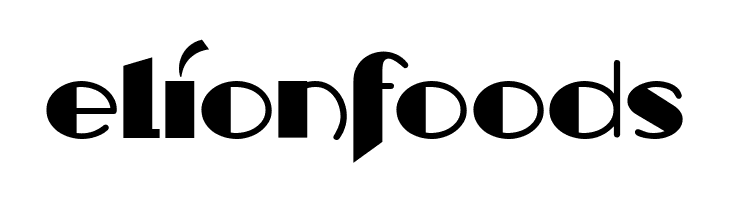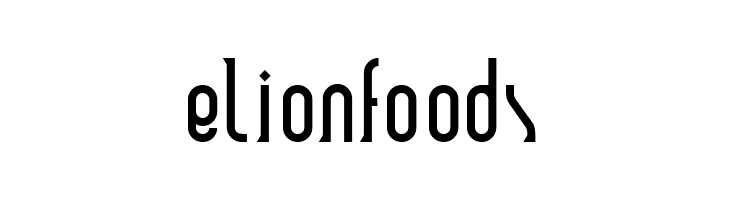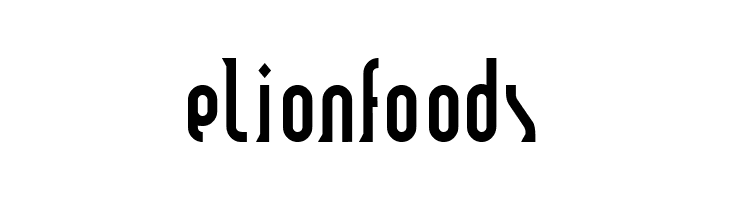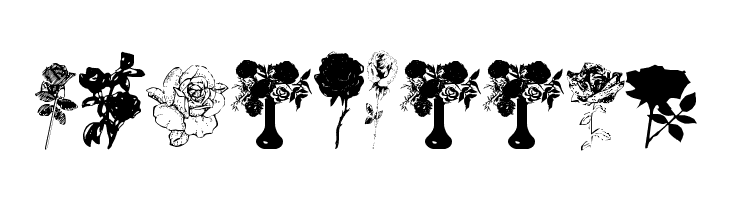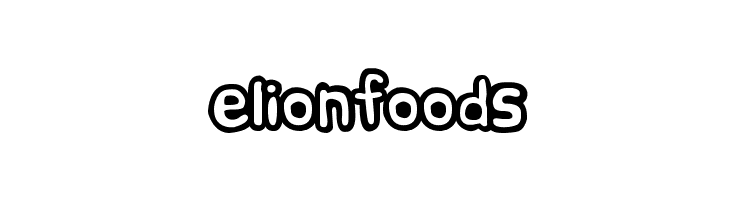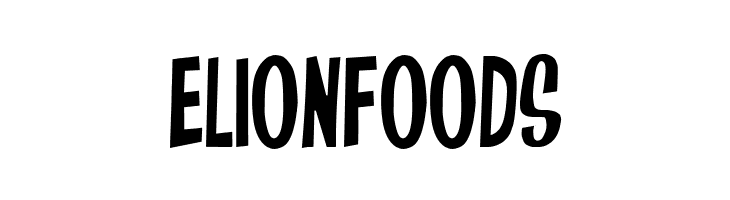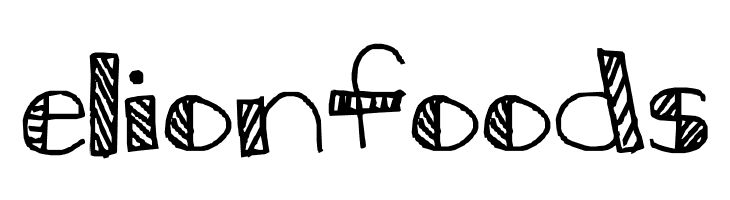
( Andriko1 )
A dynamic and flowing script font with elegant, cursive letterforms.
( Atjcloth Studio - Hanif Syahputra - creativemarket.com/Atjcloth?u=Atjcloth )
A dynamic and expressive handwritten font with playful curves and irregular strokes.
( Brad Terry - bradterry.net )
A sleek, modern font with thin lines and smooth curves, ideal for minimalist designs.
( Cat.B - Agathe M.Joyce - www.foundmyfont.com )
An elegant script font with flowing, interconnected letters and a classic calligraphic style.
( Darrell Flood )
A bold, geometric font with a futuristic and digital aesthetic.
( Darrell Flood )
A bold, italicized font with a futuristic and angular design.
( Darrell Flood )
A bold, geometric font with a futuristic and digital style.
( Darrell Flood )
A bold, angular, and italicized font with a futuristic and aggressive design.
( Dismantle Destroy - Matthew Tyndall - creativemarket.com/Dismantle )
A bold, italic, modern font with a sleek and dynamic design.
( Dismantle Destroy - Matthew Tyndall - creativemarket.com/Dismantle )
A sleek, modern italic font with clean lines and geometric structure.
( Dismantle Destroy - Matthew Tyndall - creativemarket.com/Dismantle )
A modern, geometric font with sleek lines and circular elements.
( Dismantle Destroy - Matthew Tyndall - creativemarket.com/Dismantle )
A modern, geometric font with bold, clean lines and a uniform appearance.
( Dismantle Destroy - Matthew Tyndall - creativemarket.com/Dismantle )
A bold, slab serif font with strong geometric shapes and thick strokes.
( Dismantle Destroy - Matthew Tyndall - creativemarket.com/Dismantle )
A bold, geometric font with a modern and industrial aesthetic.
( Jordan Raspatie - futureistoday.tumblr.com )
A high-contrast, artistic font with elongated, narrow letters and modern geometric shapes.
( Masinong Studio - creativemarket.com/masinong )
An elegant script font with flowing, cursive letterforms and intricate details.
( Muhammad Akbar - creativemarket.com/sinfa )
A graceful script font with flowing, interconnected letters and a cursive style.
( Nils Stahl )
A playful and eclectic mix of hand-drawn symbols and doodles with a whimsical style.
( Rafael Saldaña - ikarusmedia.deviantart.com/gallery/ https://www.dafont.com/es/dotgrid.font )
A geometric, minimalist font with thin lines and consistent stroke width.
( Sabrtype - creativemarket.com/Sabrtype )
A cursive, handwritten font with elegant, flowing strokes and medium contrast.
( Sahirul Iman - creativemarket.com/nami_studio )
A bold, playful font with exaggerated curves and a whimsical style.
( Southype - Rodrigo Gonzalez - www.southype.com )
A display font made from glass and bottle silhouettes.
( Thirtypath - www.thirtypath.com )
An elegant script font with ornate swashes and flowing cursive letterforms.
( Tim Garrett - www.timgarrett.co.uk )
A modern, geometric font with clean lines and a minimalist style.
( Vladimir Nikolic - www.coroflot.com/vladimirnikolic )
A whimsical font with letters designed as cat and dog faces, perfect for playful projects.
( Vladimir Nikolic - www.coroflot.com/vladimirnikolic )
A playful, hand-drawn font with a mix of bold and hollow characters.
( Zetafonts - www.zetafonts.com )
A tall, narrow, and modern font with consistent stroke width and tight spacing.
A playful, hollow, rounded font with a bubbly and whimsical style.
A playful, rounded font with a bold and friendly appearance.
A playful, bold, and slightly italicized font with rounded, bubbly characters.
A playful, hollow, and rounded font with a whimsical style.
A playful, bold, and rounded font with a whimsical and fun appearance.
A playful, handwritten font with fluid, curvy lines and a whimsical style.
A playful, hand-drawn font with curvy, fluid letterforms and a whimsical style.
A bold, italic, and playful font with a handwritten style.